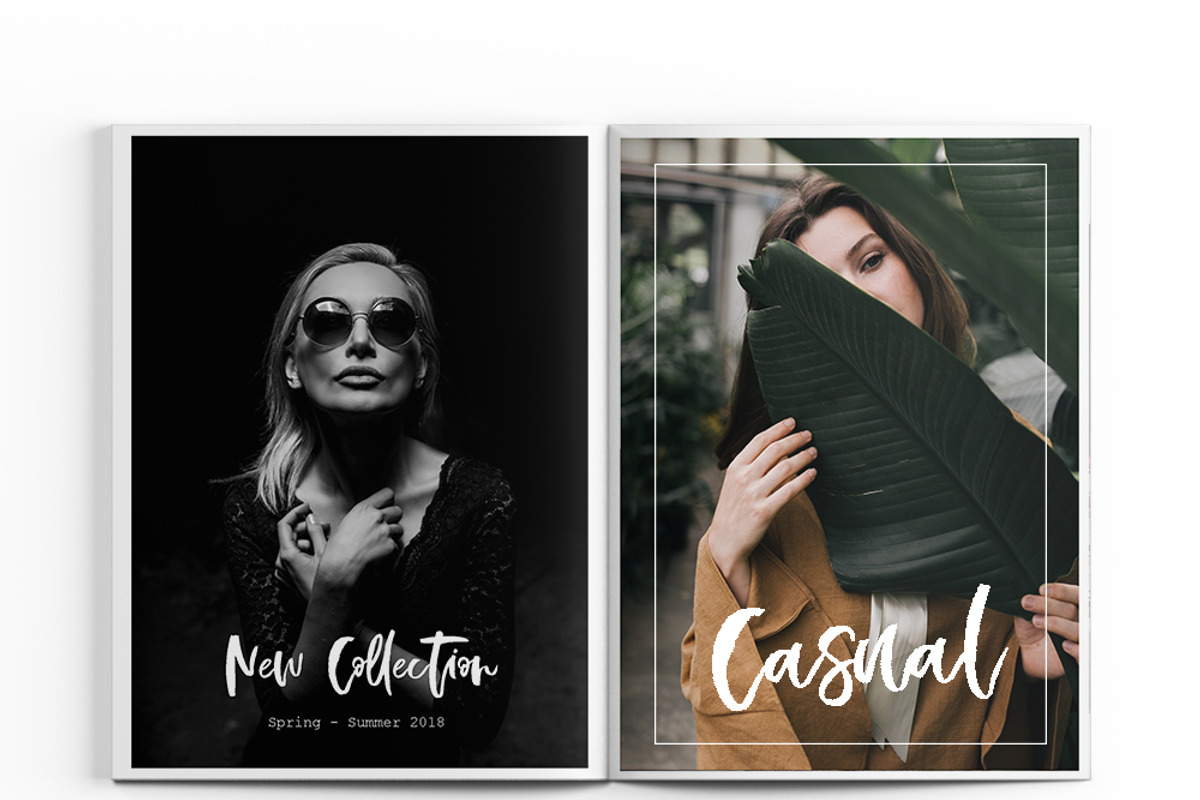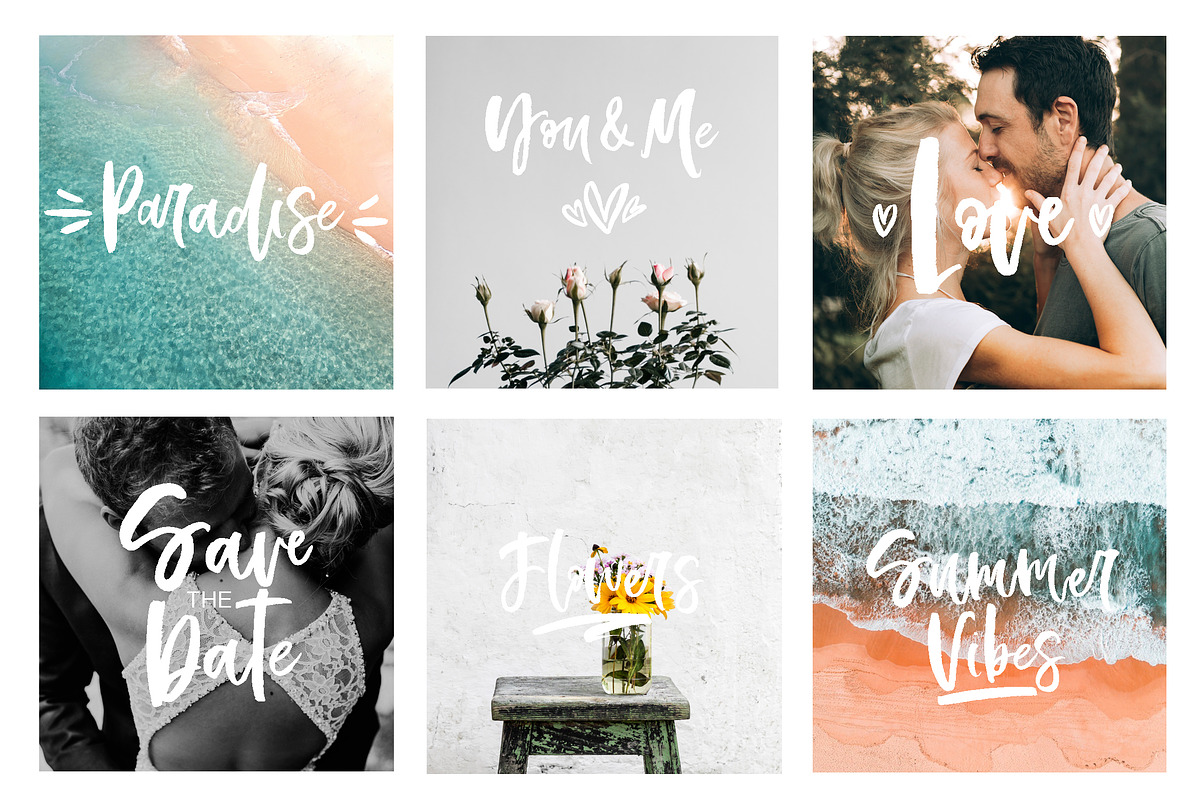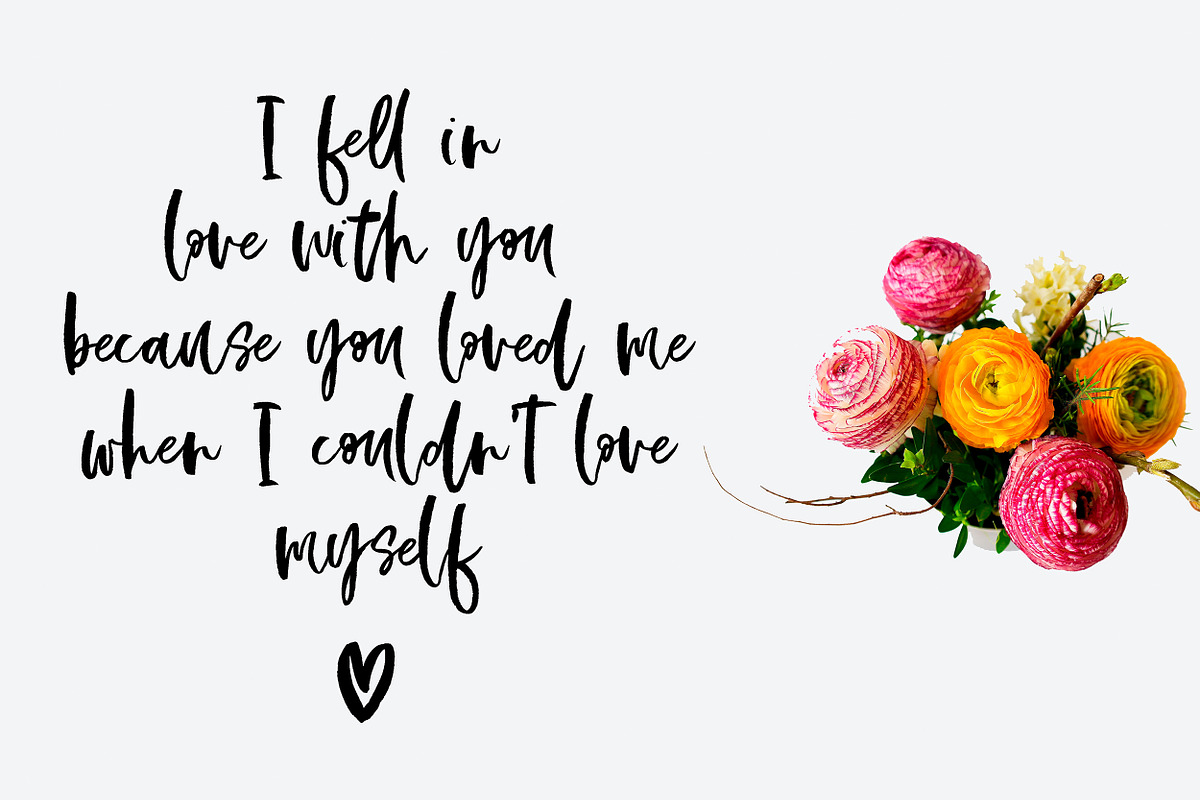
Bellamy Script
I'm happy to introduce you BELLAMY FONT!
It's hand-drawn calligraphic script with dancing baseline and lots of possibilities. This expressive font will look awesome on your cards, wedding invitations, headings, branding materials, quotes, t-shirt and any other amazing projects you are working on.
Bellamy font includes Upper and Lowercase Basic Characters, Alternates Lowercase Characters, Standard Ligatures, Numbers and Punctuation. Bellamy has multilingual support for the Western and Central European Languages.
Also Bellamy Font comes with Open Type Features (OTF) consisting of a full set of lowercase alternate characters and some ligatures. In order to use OTF you need to have programms like Adobe Photoshop, Adobe Illustrator, Pages, Word.